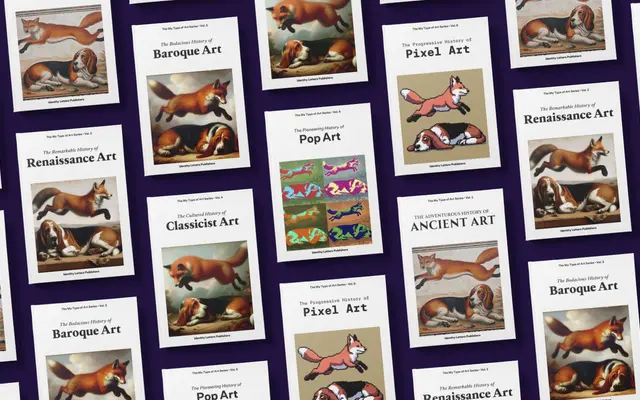
Allrounder Baroque
Identity Letters · Moritz Kleinsorge
A transitional serif drawing on Baroque-era punchcutting traditions, designed by Moritz Kleinsorge as part of the broader Allrounder superfamily.
Built on the heritage of 17th and 18th-century punchcutters such as Christoffel van Dijck and Joan Michaël Fleischman, the design brings medium contrast, cupped serifs and ball terminals into a contemporary digital context without tipping into excess. Ten styles across five weights with italics cover long-form text, branding and UI work, backed by an OpenType feature set including small caps, multiple figure styles, case-sensitive forms and support for over 200 Latin-based languages. Its membership of the Allrounder superfamily means it can be paired with Allrounder Grotesk or Allrounder Grotesk Mono without metric adjustment.
Described explicitly as a transitional or 'rococo' serif, drawing on Baroque-era punchcutters such as van Dijck and Fleischman, with medium contrast, cupped serifs and ball terminals characteristic of transitional letterforms.